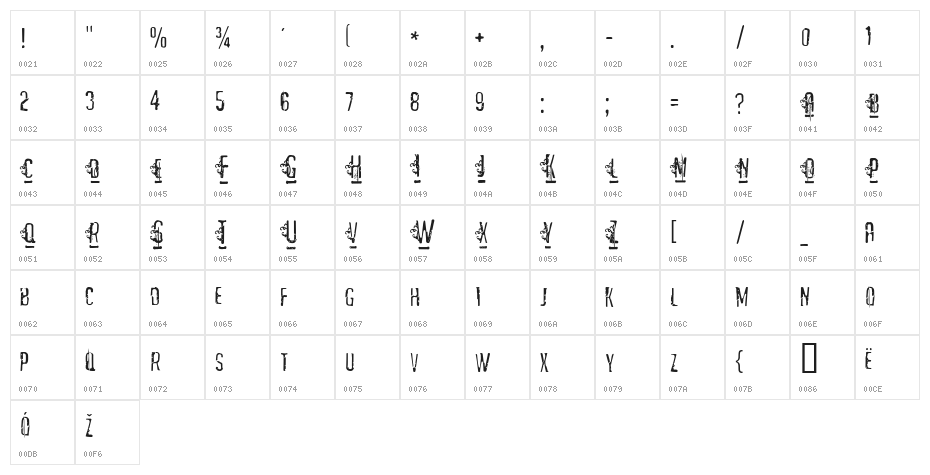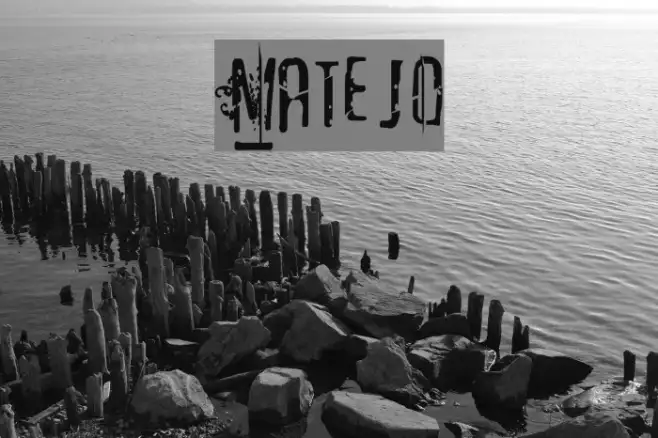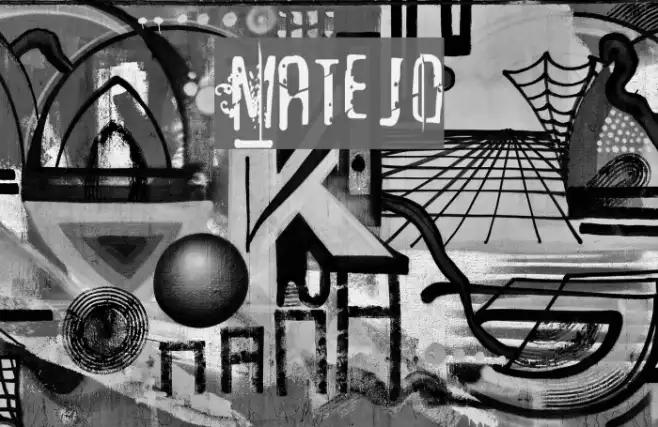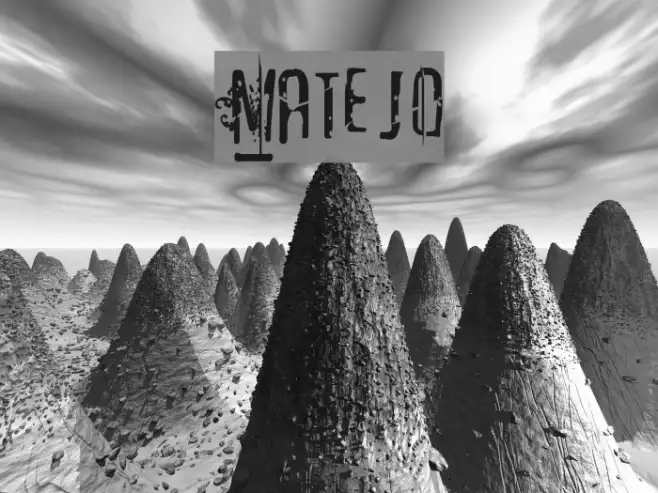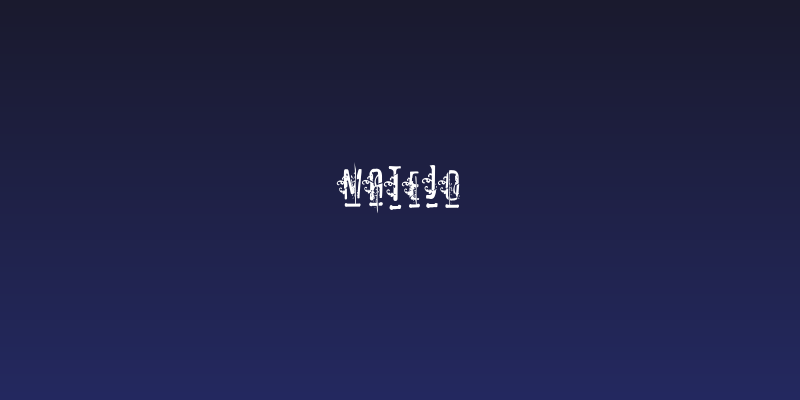
Matejo Font
Matejo Description
This font features a distressed, grunge style with a decorative flair. The uppercase letters are adorned with intricate flourishes, giving them a unique, vintage appearance. The lowercase letters maintain a consistent style, with a slightly rough texture that adds to the overall distressed look. Numbers and special characters follow the same design principles, ensuring a cohesive appearance across all glyphs. The font's bold and striking design makes it ideal for projects that require a strong visual impact.
| Overall Style | Vintage, Decorative |
| Proposed Projects | Ideal for vintage-themed posters, album covers, and branding materials that require a bold, artistic touch. |